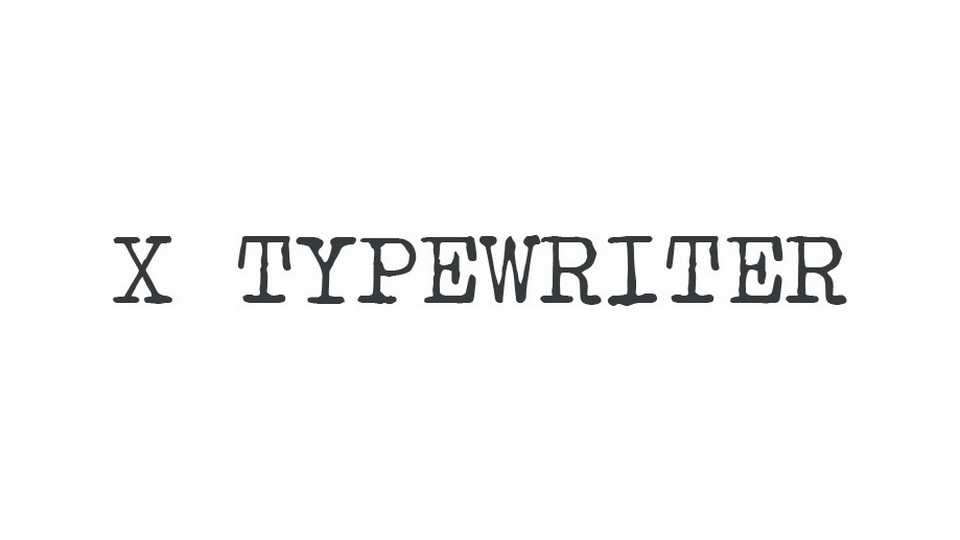
Download X Typewriter font, a monospaced typeface designed to give a real typewriter feel With its warm and natural feel the font is perfect for vintage projects.